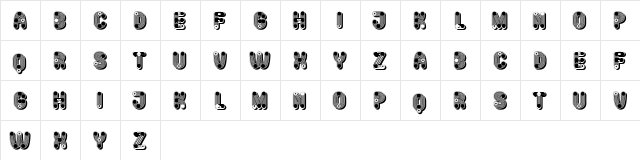
Aiday Regular Free Font
Aiday Regular
Complete Aiday Regular glyph index. Displaying only characters natively supported by Aiday Regular font.
Design Context for Aiday
Aiday is a composed and adaptable typeface that performs quietly and consistently across a wide range of design contexts.